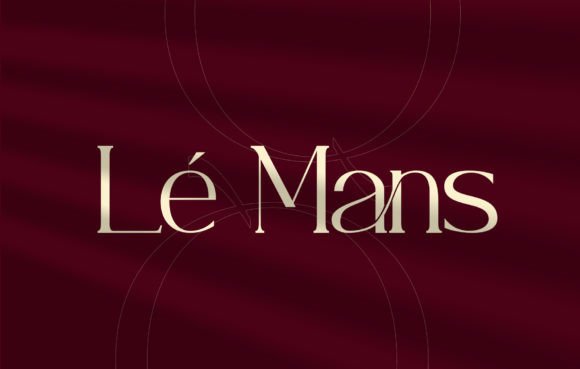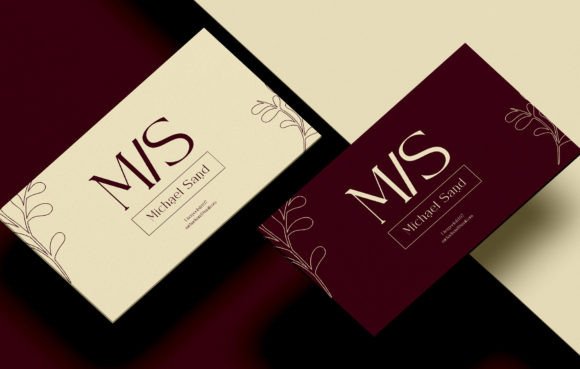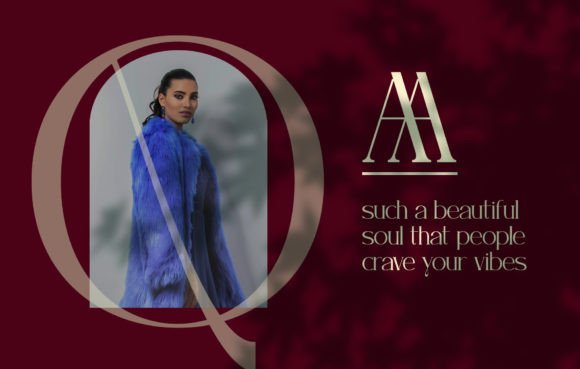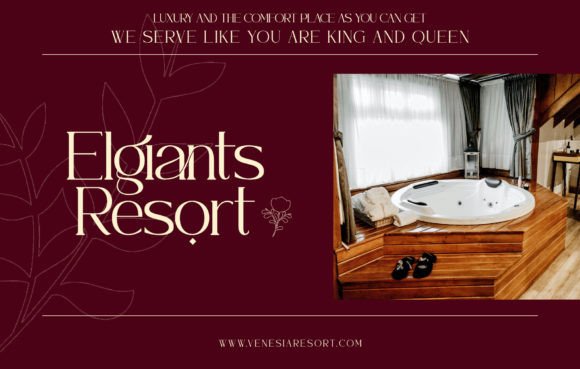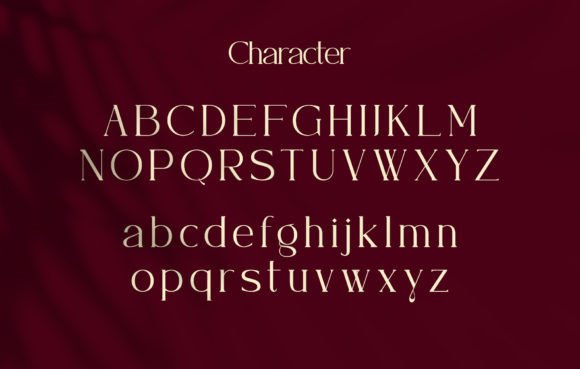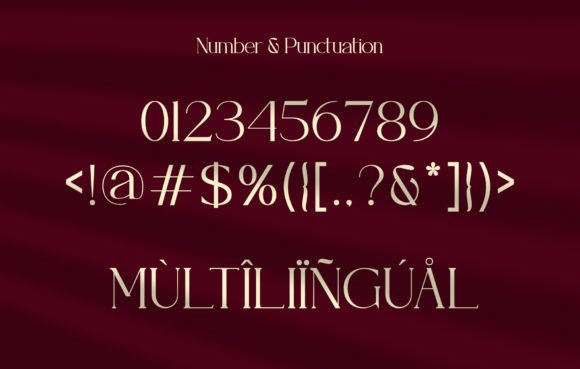
Introduction to Saamvoor Font
As a designer, there’s nothing quite like the thrill of bringing a creative vision to life. You’re working late into the night, pouring over sketches and mockups, and finally, the perfect font emerges. For those special moments, you need a font that’s not just aesthetically pleasing, but also versatile and high-quality. Enter the Saamvoor Font, a modern serif typeface that’s perfect for a wide range of creative projects.
Whether you’re designing a luxury logo, a classy editorial piece, or a fashion promotional campaign, the Saamvoor Font has got you covered. With its elegant lines and sophisticated feel, it’s the perfect design resource for anyone looking to elevate their creative project. And the best part? It’s available for free download, complete with a transparent background, making it easy to integrate into any design.
Key Features of Saamvoor Font
- Unique, hand-drawn style with a transparent background, ideal for custom designs
- Includes a wide range of characters, including Latin, Cyrillic, and Greek alphabets, making it a versatile design resource
- Designed to be highly legible, with clear lines and distinct letterforms, making it perfect for body text and headings
Honest Review: Saamvoor Font
As a designer, I’m always on the lookout for high-quality design resources that can elevate my creative projects. Recently, I stumbled upon the Saamvoor Font, and I’m excited to share my honest review with you.
The Saamvoor Font is a stunning free download that boasts a unique, hand-drawn style with a transparent background. This makes it perfect for designers who want to add a touch of personality to their designs without the hassle of complicated backgrounds.
Here are some things that work well with the Saamvoor Font:
- ✨ Unique and creative design style
- ✨ High-quality vectors for crisp and clear printing
- ✨ Versatile and suitable for a wide range of design projects
- ⚠️ Limited font styles and weights available
Overall, I’m impressed with the Saamvoor Font, and I think it’s a great design resource for personal projects or small-scale creative endeavors. While it may have its limitations, it’s a high-quality font that’s definitely worth checking out.
Tips for Getting the Most Out of the Saamvoor Font
Use the Saamvoor Font on a transparent background to create a clean and modern look. Experiment with different font sizes and styles to add visual interest to your design.
The Saamvoor Font is perfect for use in logos, branding materials, and marketing materials. It’s also great for creating custom graphics and illustrations.